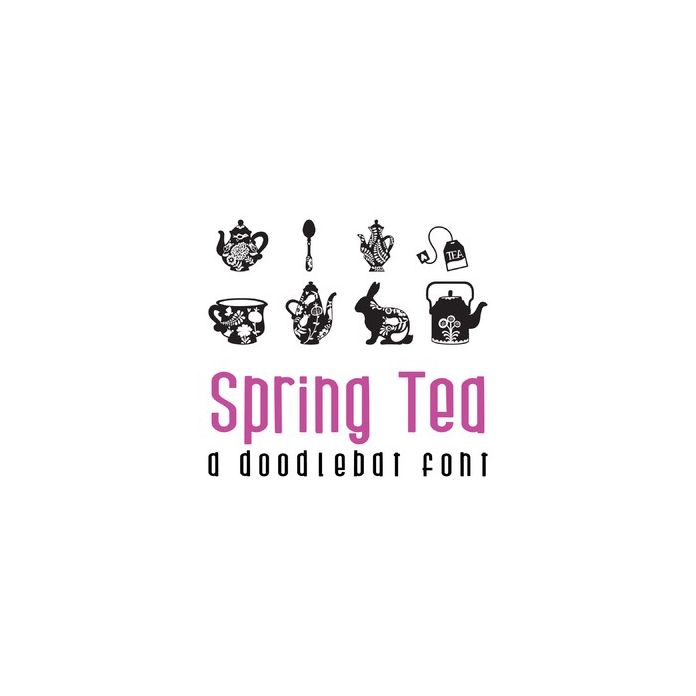
This fun doodlebat font features 26 fun tea silhouettes with floral designs. Perfect for cards, gifts, decor, crafts, scrap book pages, planner stickers and more!